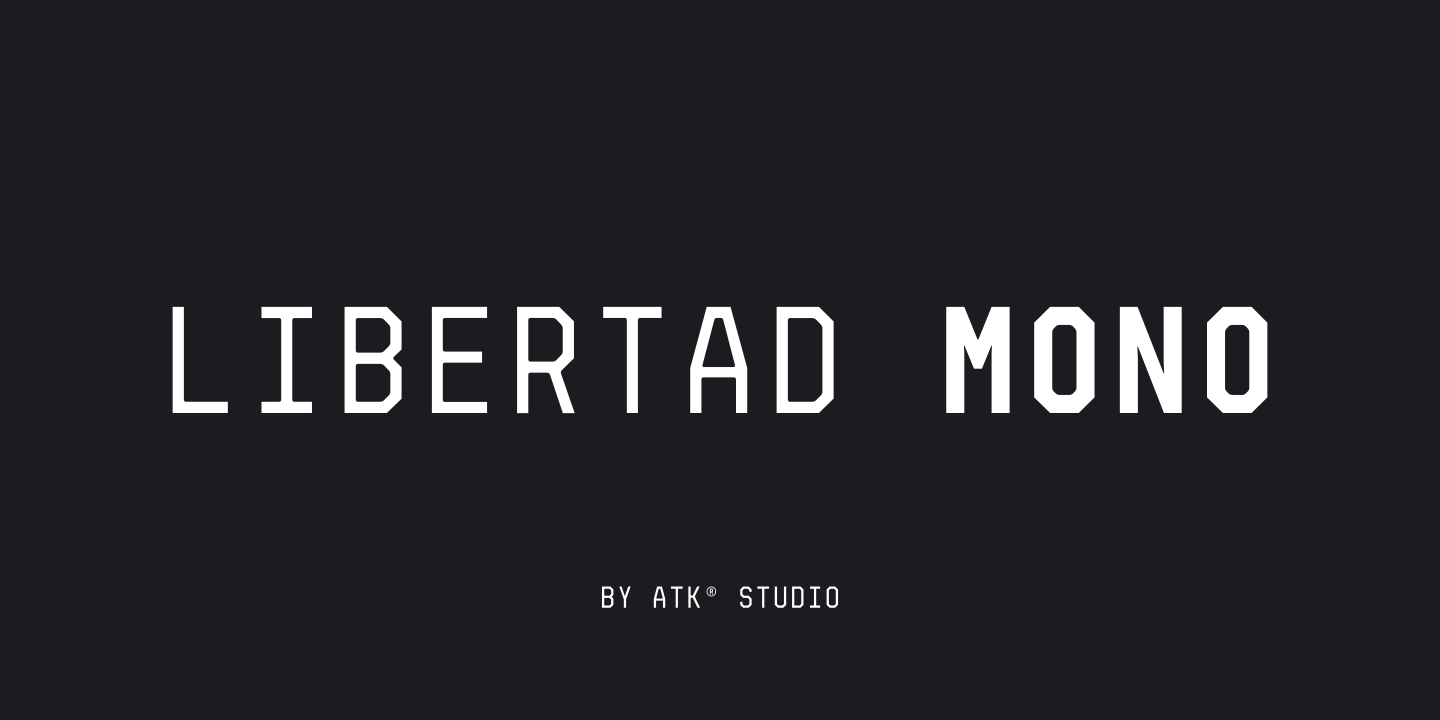
Libertad Mono Font is perfect for programming environments, code documentation, terminal interfaces, technical manuals, software development tools, data visualization projects, scientific publications, engineering diagrams, financial reports, and digital workspace applications that require precise monospaced typography with liberation from traditional constraints and enhanced coding productivity.
What makes Libertad Mono Font so exciting is its liberating approach to monospaced typography that breaks free from conventional coding font limitations while maintaining the essential functionality developers demand. This font features carefully optimized character spacing and distinctive letterforms that reduce eye strain during extended coding sessions while providing clear differentiation between similar characters. The thoughtful design approach prioritizes both functionality and visual comfort, making it perfect for developers and technical professionals who spend long hours working with code and data.
The Libertad Mono Font family includes multiple weights and styles: Light, Regular, Medium, Bold, and their corresponding Italic variants. Each weight maintains the signature liberated monospace character while offering comprehensive flexibility for diverse coding environments and technical documentation hierarchies.
Developer-focused designers consistently choose Libertad Mono Font Free Download for projects requiring superior monospaced typography that embodies coding freedom and technical excellence. Whether you're developing integrated development environments, creating technical documentation systems, designing data analysis interfaces, or crafting programming tutorial materials, this font delivers exceptional clarity and coding comfort. The font's comprehensive character set includes programming symbols and supports multiple coding languages while ensuring optimal legibility across all development platforms and technical applications, making it an essential tool for developers and designers working on technical projects that demand liberated, comfortable, and functionally superior monospaced typography solutions with coding excellence and developer-focused design.